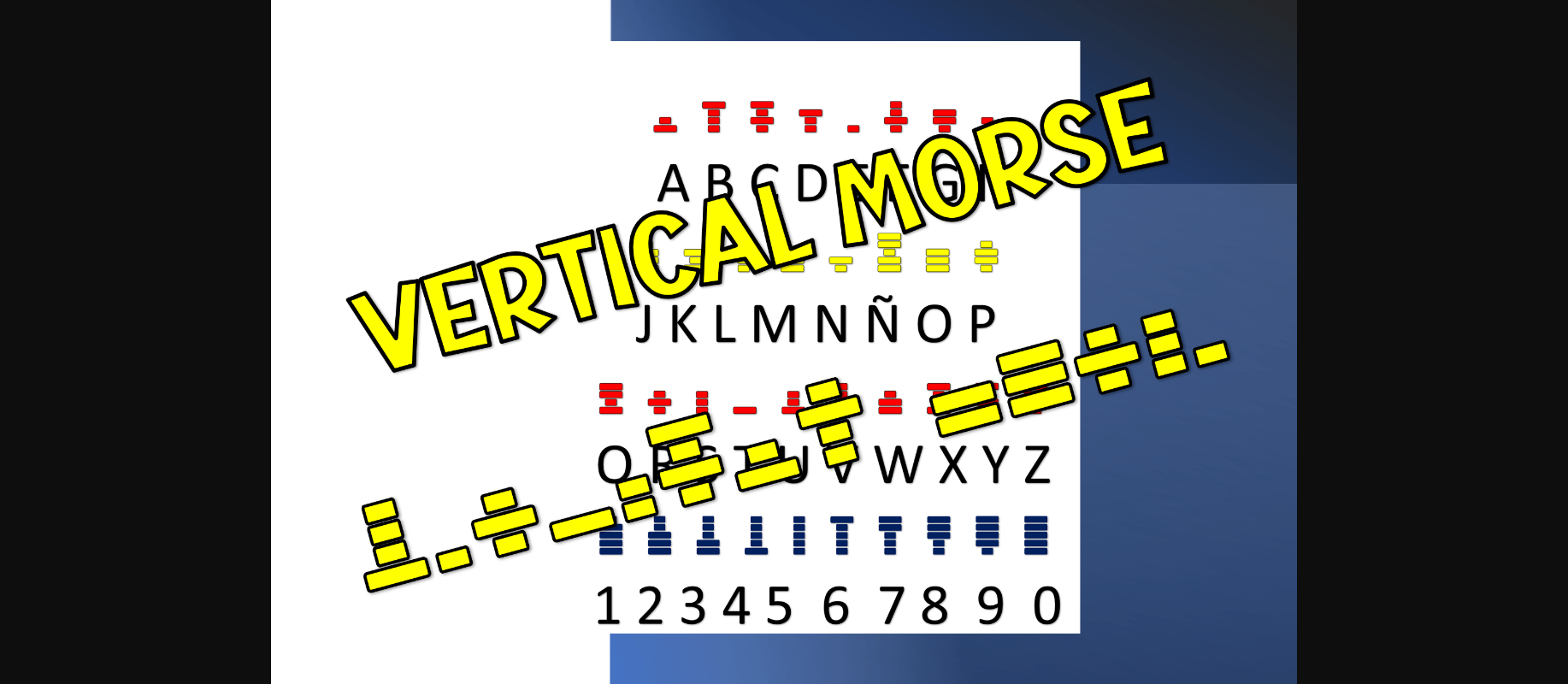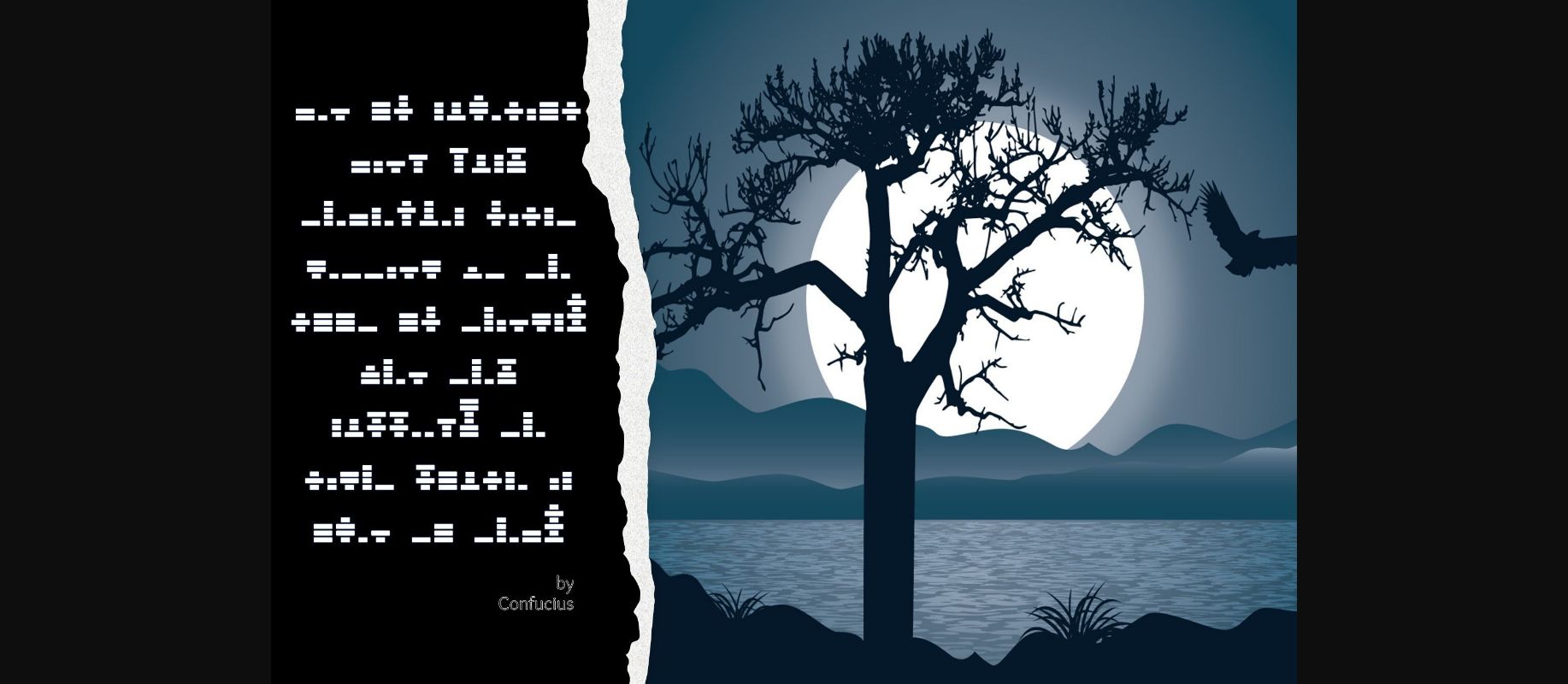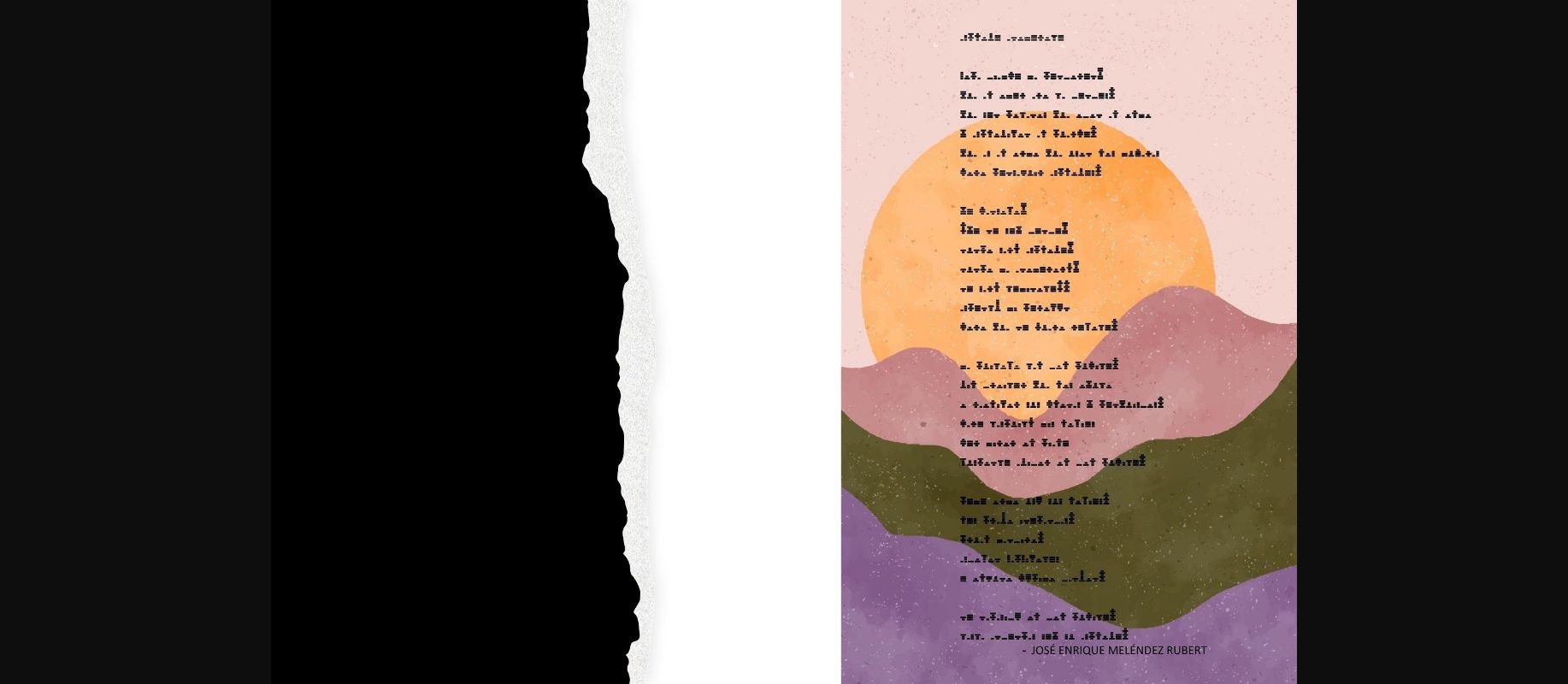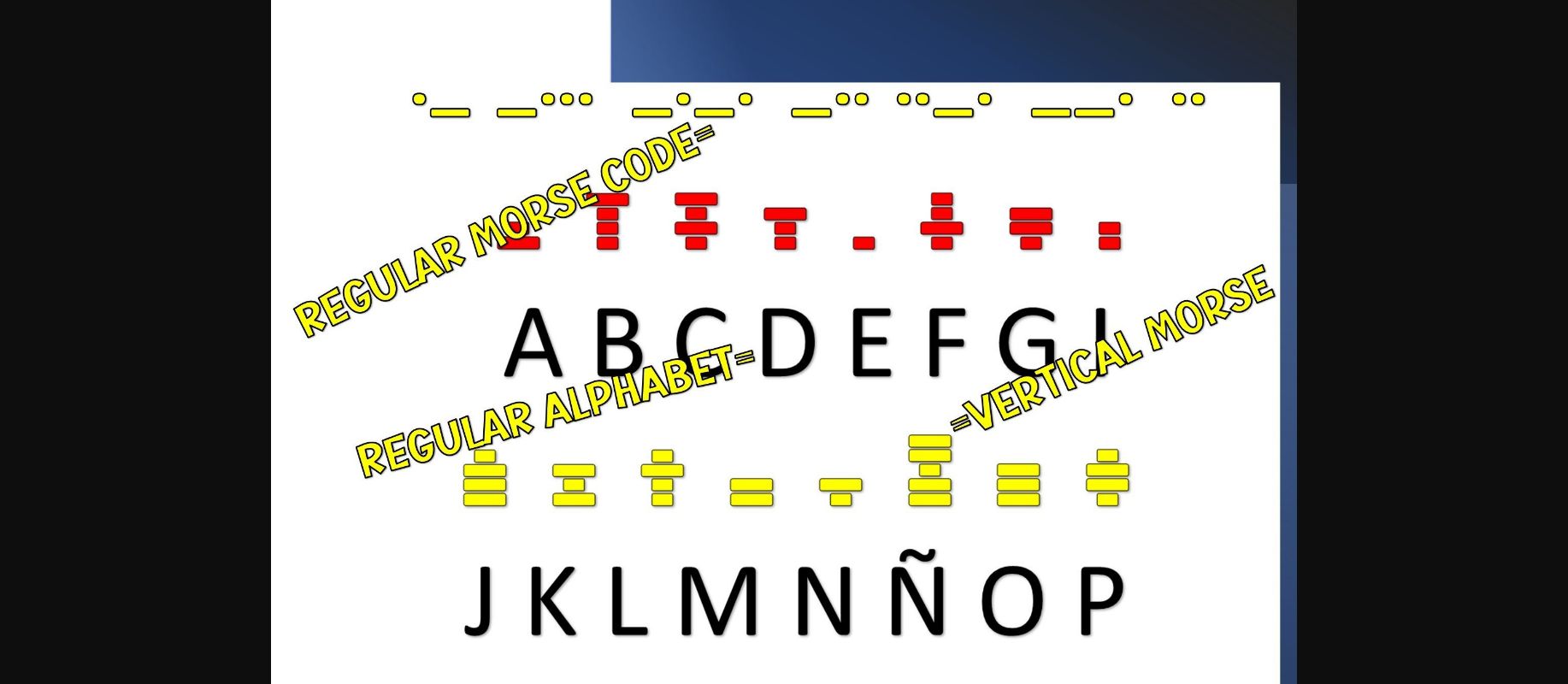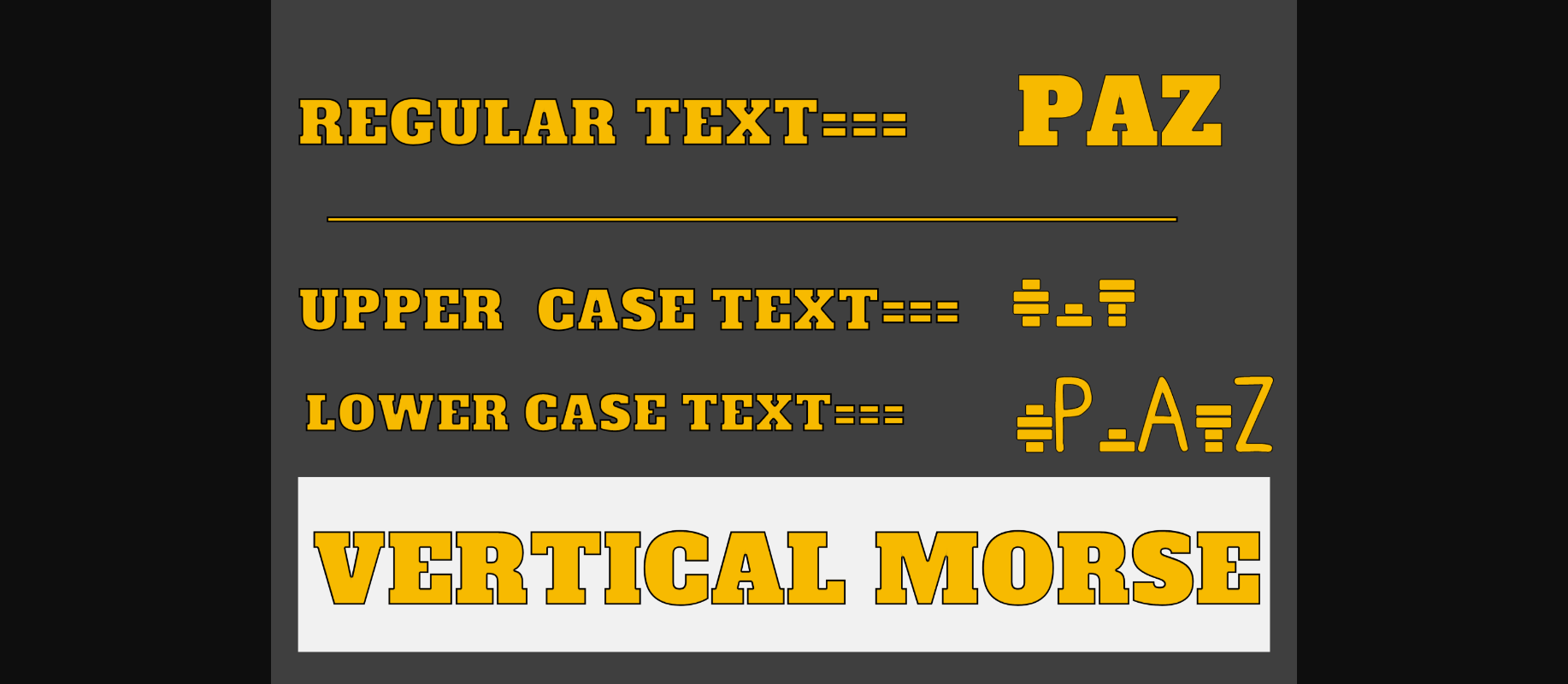
Vertical Morse Font
About Vertical Morse Font
The classic Morse code, also known as the Morse alphabet, is a system of representations of letters and numbers using signals emitted intermittently. Vertical Morse is an interesting decorative version of the Morse Code, arranged vertically for computer use, where each letter occupies only the space of a single character. Add this incredibly unique font to your projects and you will be astounded by the generated outcome!